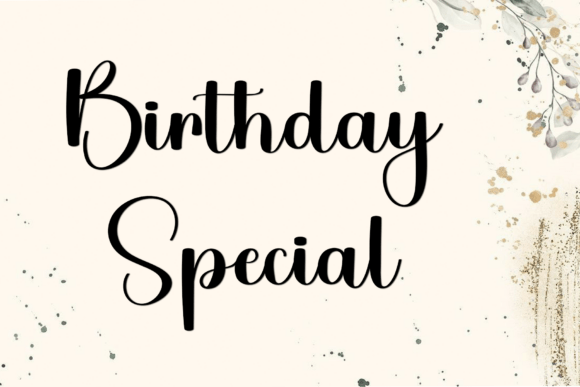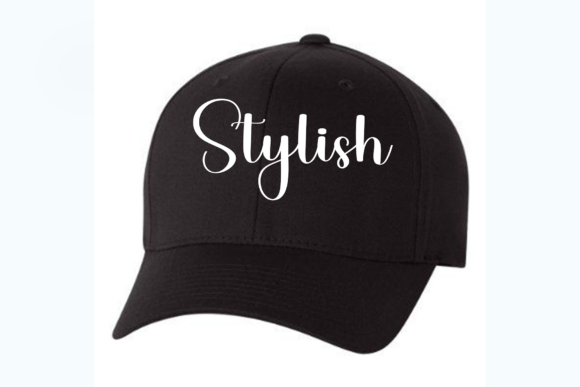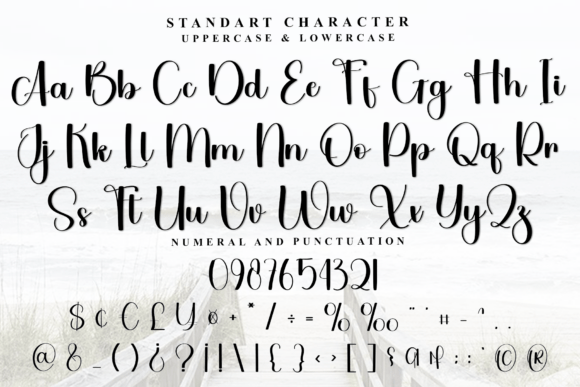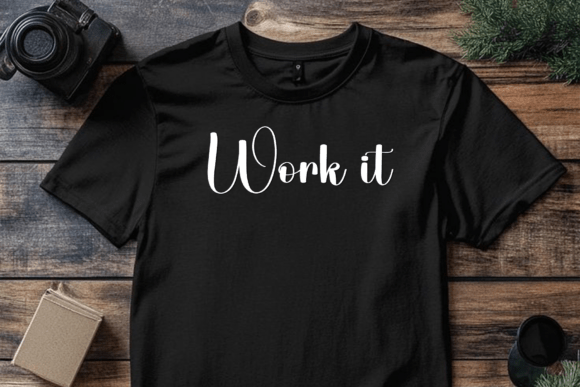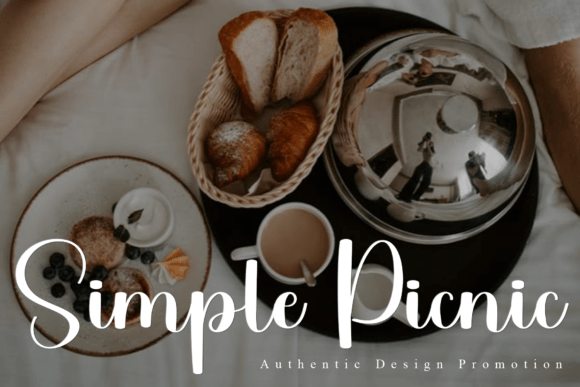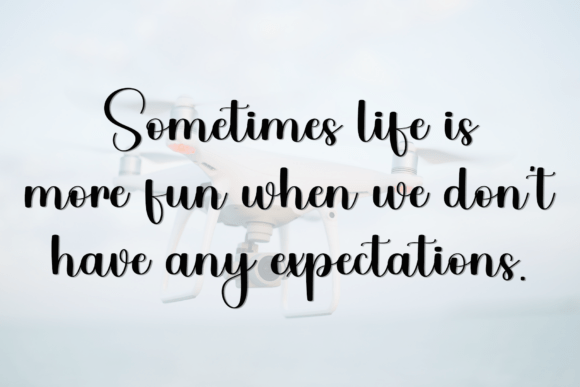
Introducing Happy Valentica Font: The Ultimate Holiday Typeface
Are you looking for a font that embodies the spirit of the holiday season? Look no further than Happy Valentica Font! This festive and merry typeface is designed to add a touch of enchantment to your designs, making it perfect for greeting cards, gift tags, and holiday-themed projects.
The Magic of Happy Valentica Font
Happy Valentica Font is a decorative typeface that exudes a whimsical flair, making it an ideal choice for designers and crafters who want to add a dash of nostalgia and cheer to their work. With its intricate details and elegant curves, this font is sure to make your typography shine. Whether you’re creating holiday-themed invitations, gift tags, or social media posts, Happy Valentica Font is the perfect choice to spread joy and festivity.
Key Features of Happy Valentica Font
- PUA Encoding: Happy Valentica Font is PUA encoded, which means you can access all of the amazing glyphs and ligatures with ease. This feature allows you to unlock the full potential of the font and add a personal touch to your designs.
- Decorative Elements: The font features decorative elements that add a touch of whimsy and festivity to your designs. From intricate swirls to elegant flourishes, Happy Valentica Font has everything you need to create stunning holiday-themed projects.
- Whimsical Flair: Happy Valentica Font has a playful and whimsical flair that makes it perfect for holiday-themed projects. The font’s elegant curves and intricate details add a touch of sophistication and elegance to your designs.
Happy Valentica Font is an ideal choice for designers and crafters who want to add a touch of magic to their holiday-themed projects. Whether you’re creating:
- Greeting cards for friends and family
- Gift tags for presents
- Holiday-themed invitations for parties and events
- Social media posts to spread holiday cheer
Happy Valentica Font is the perfect choice to add a dash of festivity and whimsy to your designs.
Why Choose Happy Valentica Font?
With so many fonts available, why choose Happy Valentica Font? Here are just a few reasons why this font stands out:
- Unique and Festive: Happy Valentica Font is a one-of-a-kind typeface that captures the spirit of the holiday season. Its festive and merry design makes it perfect for holiday-themed projects.
- Elegant and Sophisticated: Despite its playful and whimsical flair, Happy Valentica Font is an elegant and sophisticated typeface that adds a touch of refinement to your designs.
- Easy to Use: With its PUA encoding, Happy Valentica Font is easy to use and allows you to access all of its amazing glyphs and ligatures with ease.